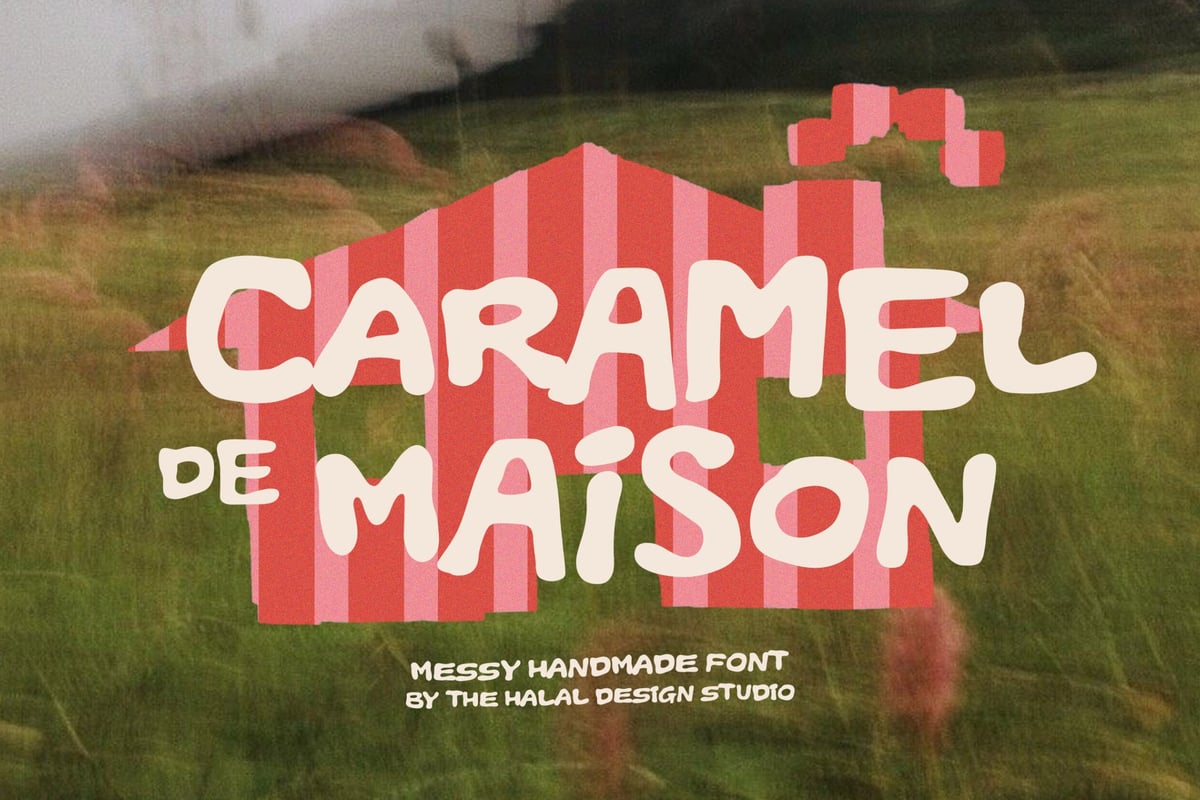
Caramel de Maison - Playful Display Font
Caramel de Maison is the sweetest display font you'll reach for when your design needs charm, warmth, and personality.
Crafted with friendly letterforms, soft curves, and a fun handcrafted spirit, this playful typeface brings a joyful, expressive energy to any creative project. Whether you're designing for a cozy bakery, a kids' brand, or an eye-catching editorial spread, this font delivers a warm and memorable look in both print and digital applications.
- Playful display style with sweet, expressive letterforms
- Ligatures and alternates for added variety
- Multilingual support for multiple languages